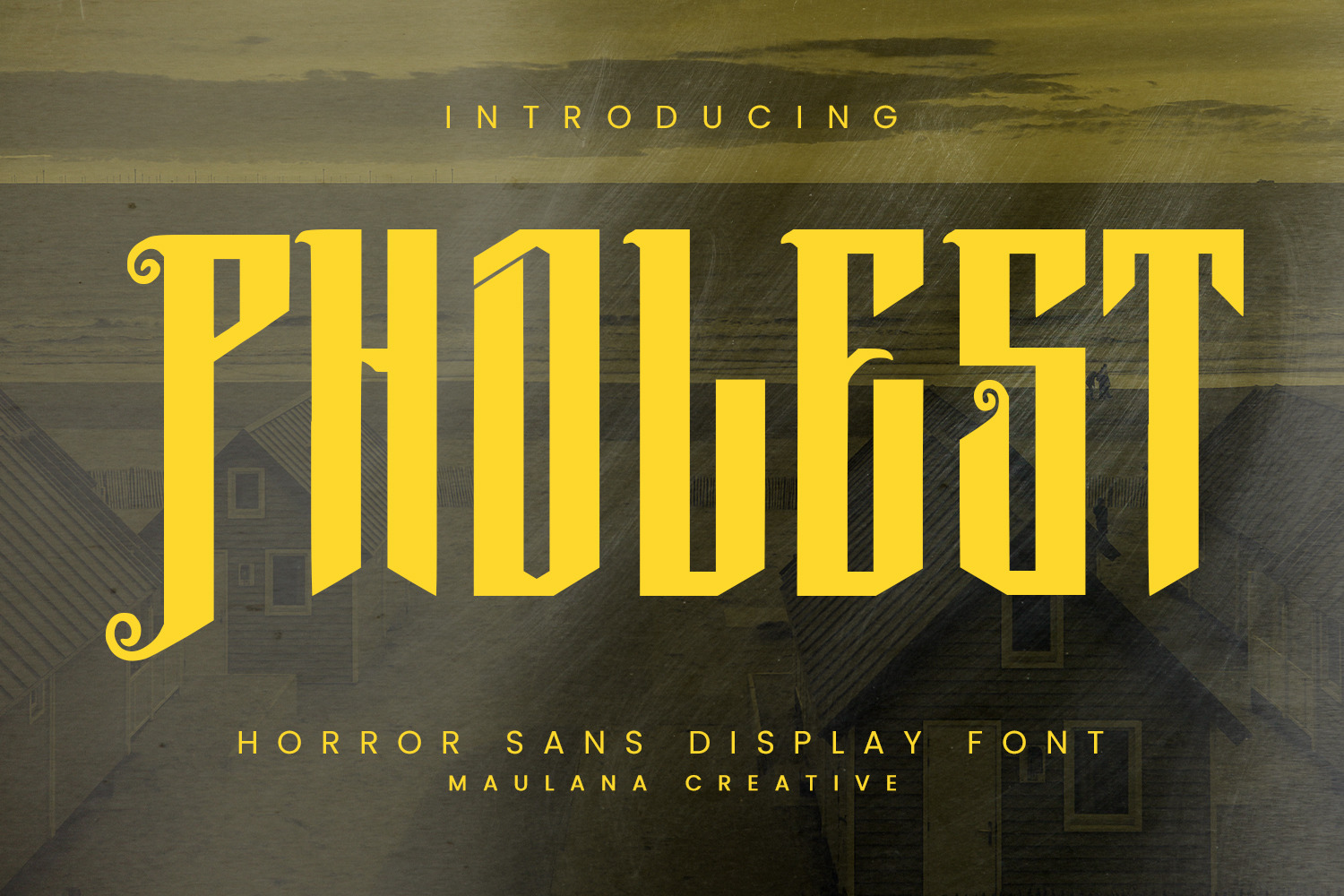
Pholest Horror Sans Display Font
Pholest horror display font. Heavy stroke, vintage character with alternates. To give you an extra creative work. Pholest display font support multilingual language. This font is good for logo design, Social media, Movie Titles, Books Titles, a short text even a long text letter and good for your secondary text font with script or serif. Make a stunning work with Pholest font.